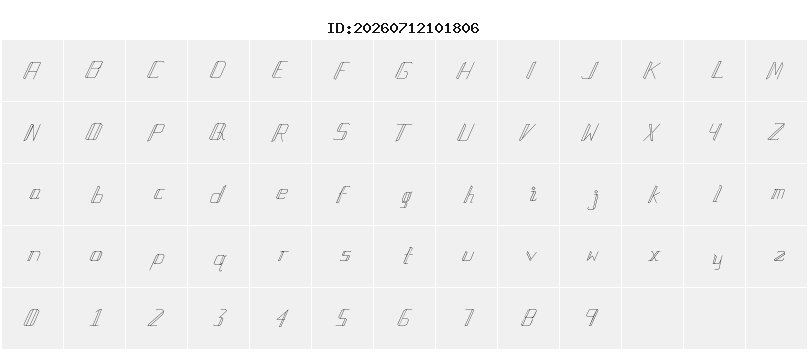
Manlangit Preview
• Font Name: Manlangit
• Full Font Name: Manlangit Regular
• Copyright: Made by Alex Manlangit, 2013
About Manlangit.ttf
Manlangit.ttf is a modern, elegant sans-serif font designed for ultimate readability and visual harmony. Perfect for branding, headlines, web design, and print materials.